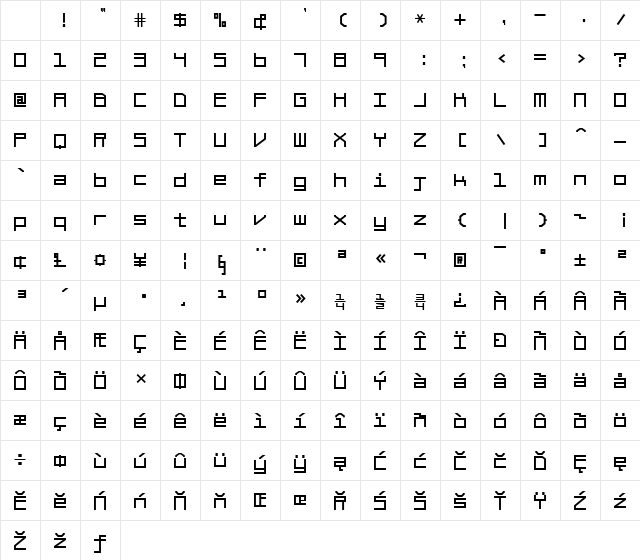
Complete Braciola MS Regular glyph index. Displaying only characters natively supported by Braciola MS Regular font.
Braciola MS is a composed and adaptable typeface that performs quietly and consistently across a wide range of design contexts.